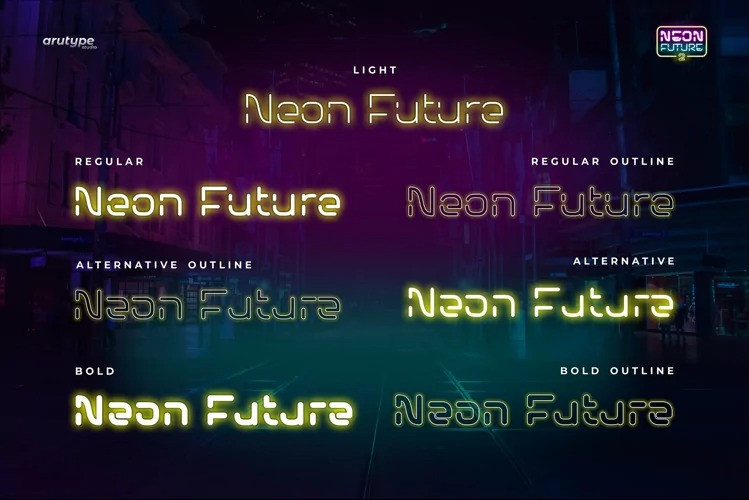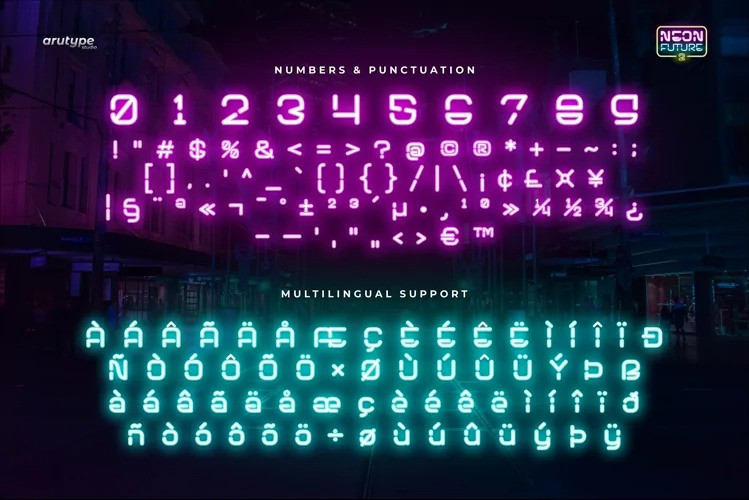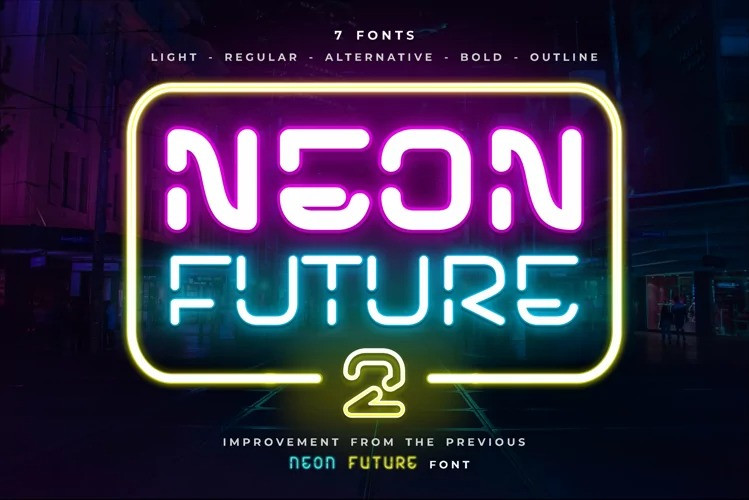
Neon Future 2 Font
Neon Future 2 Display Font is a retro-futuristic display font with a timeless style. Major improvement of the Neon Future font. There are 7 variant fonts in the Neon Future 2.0 Pro version: Light, Regular, Regular Alternative, Bold, Regular Outline, Regular Alternative Outline & Bold Outline.